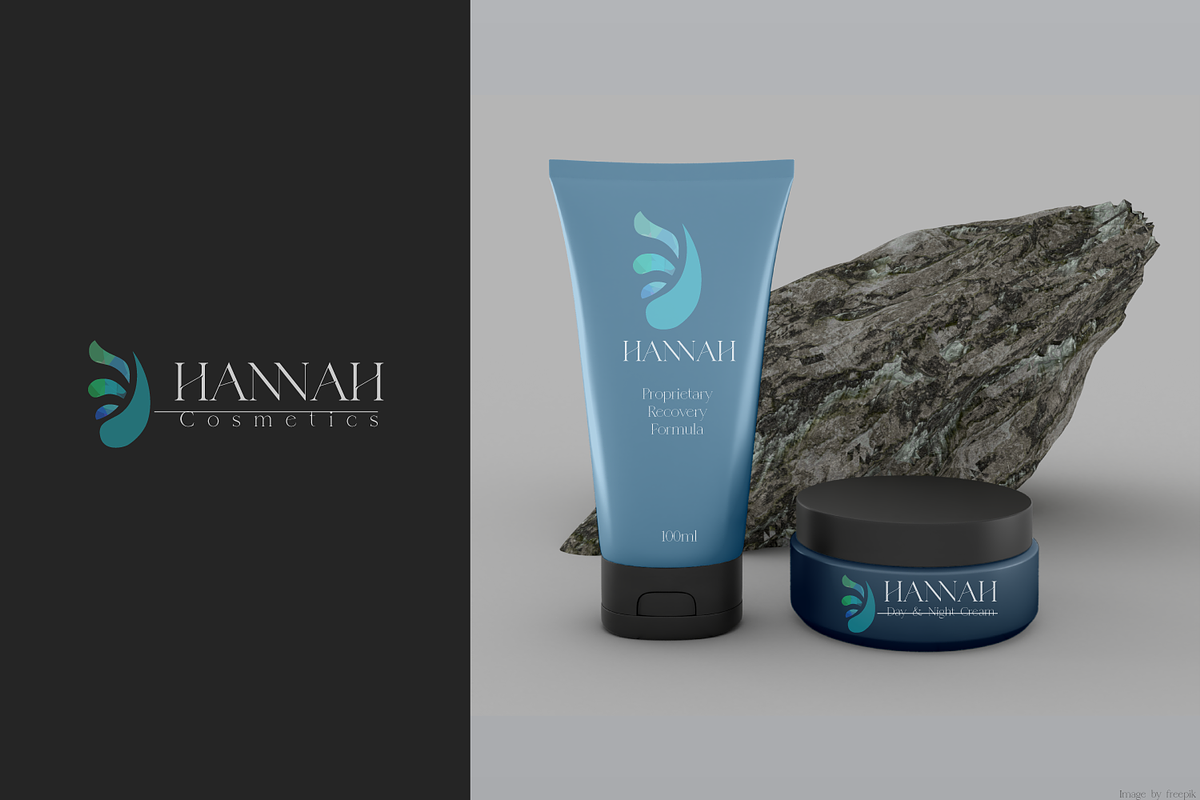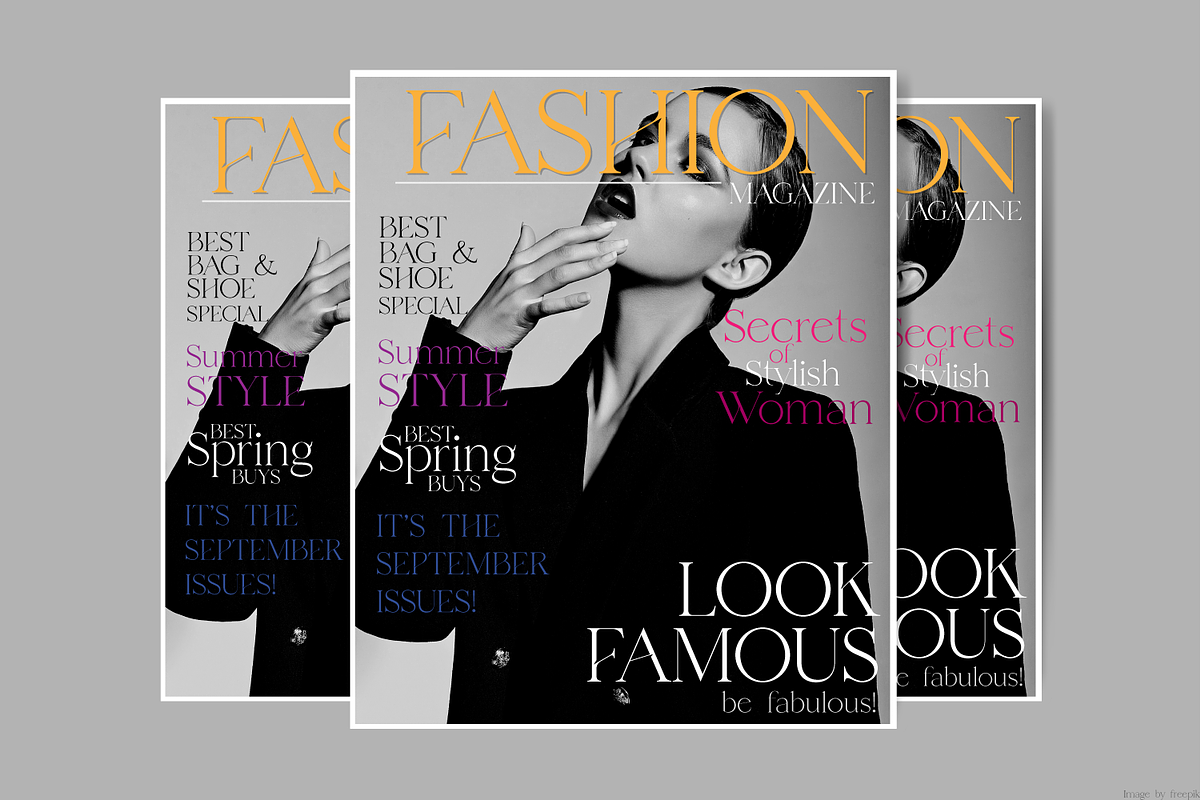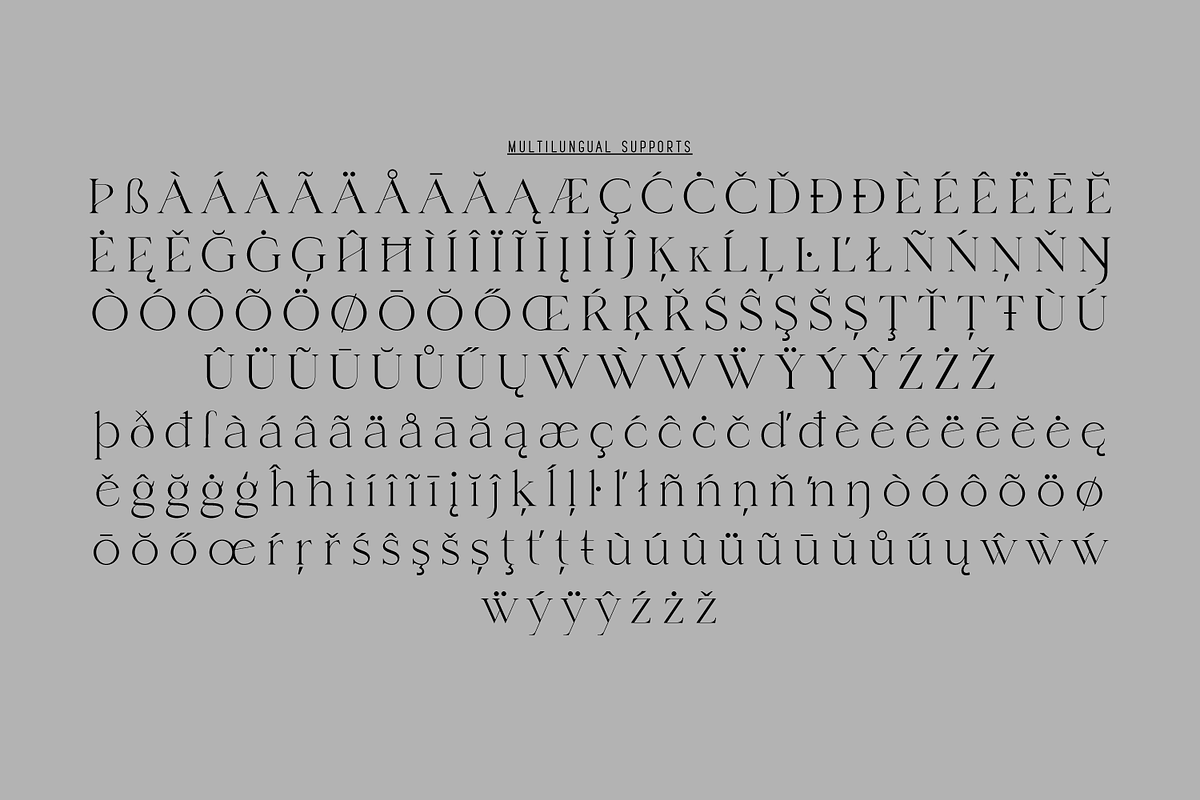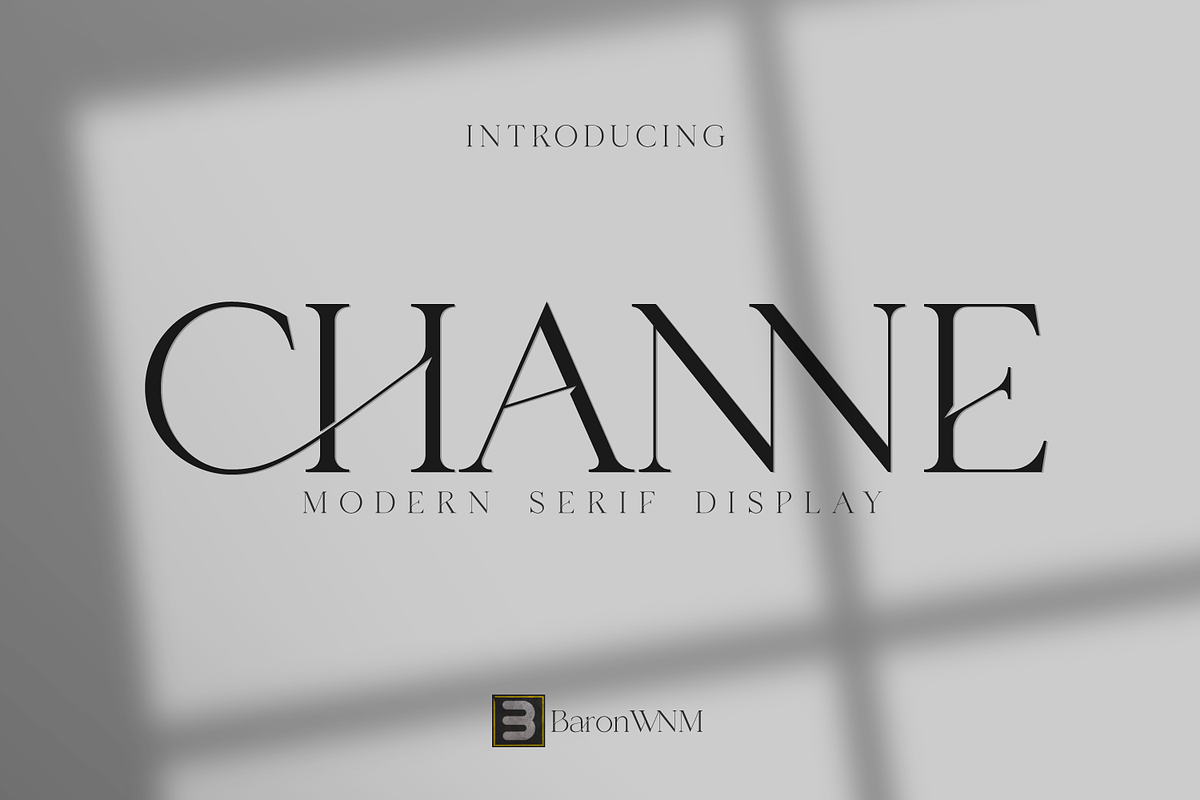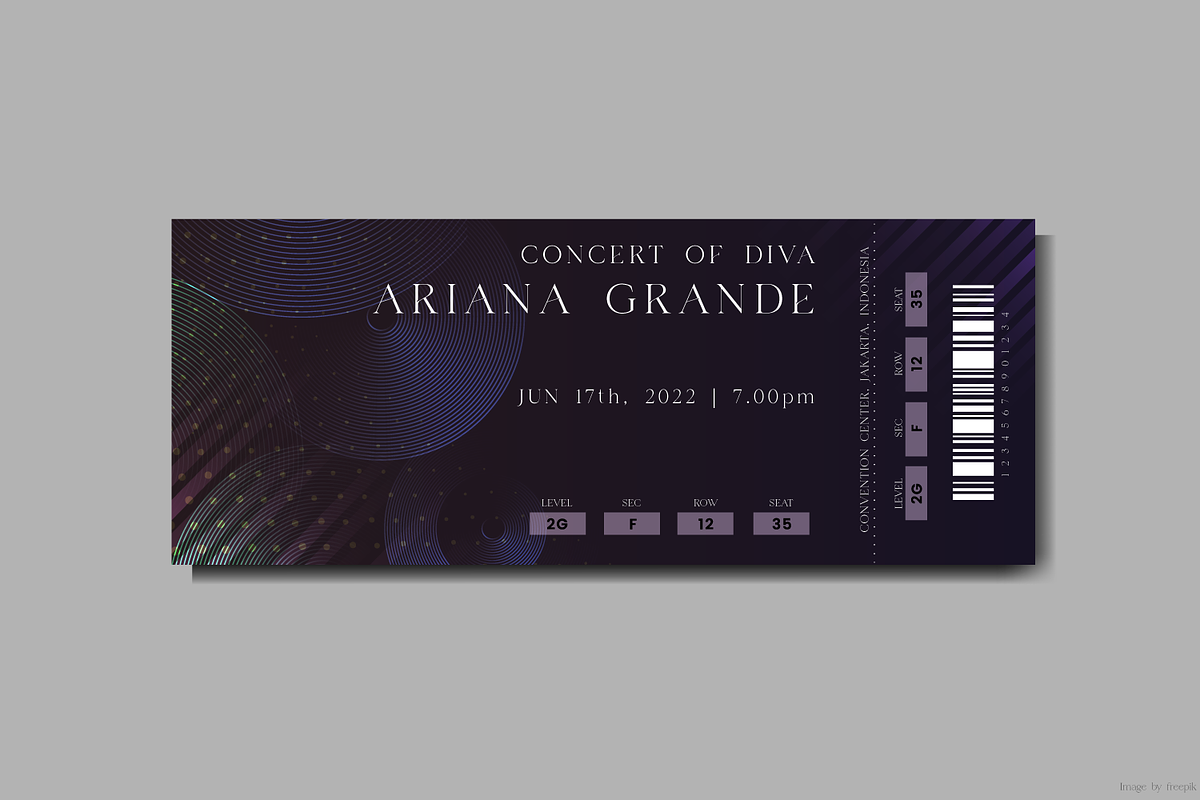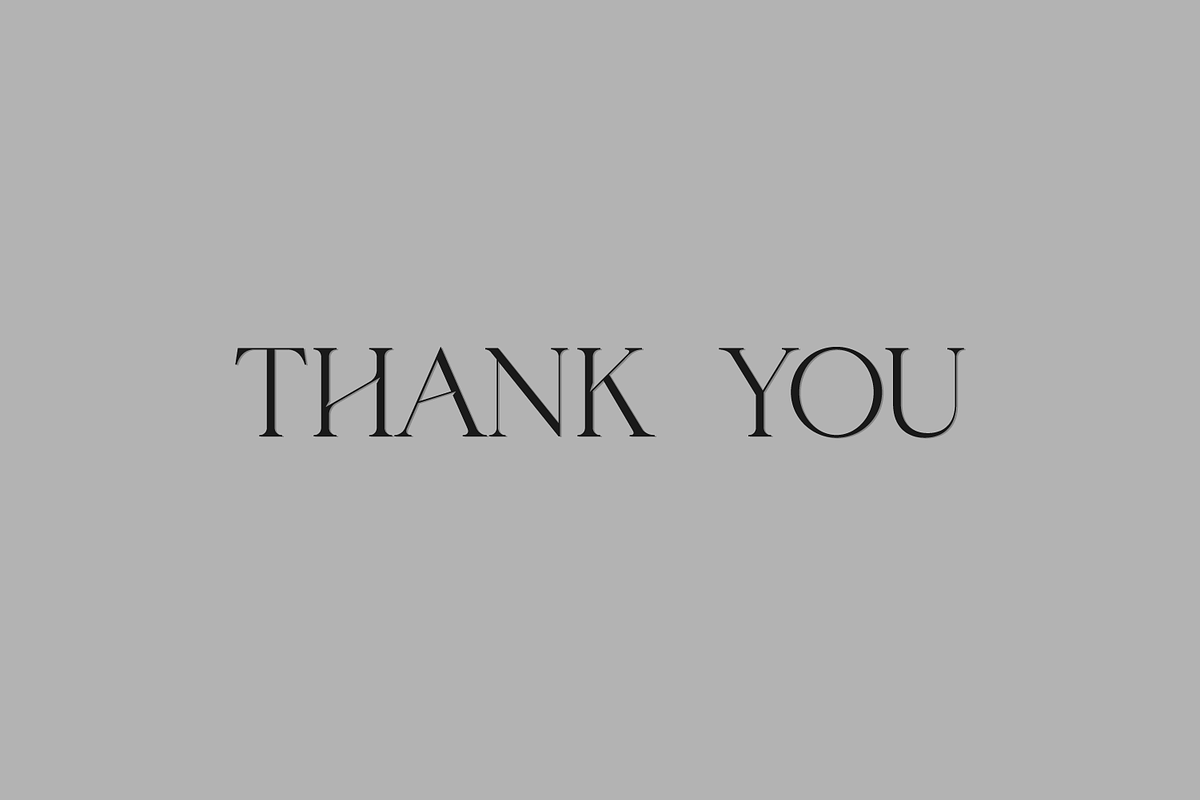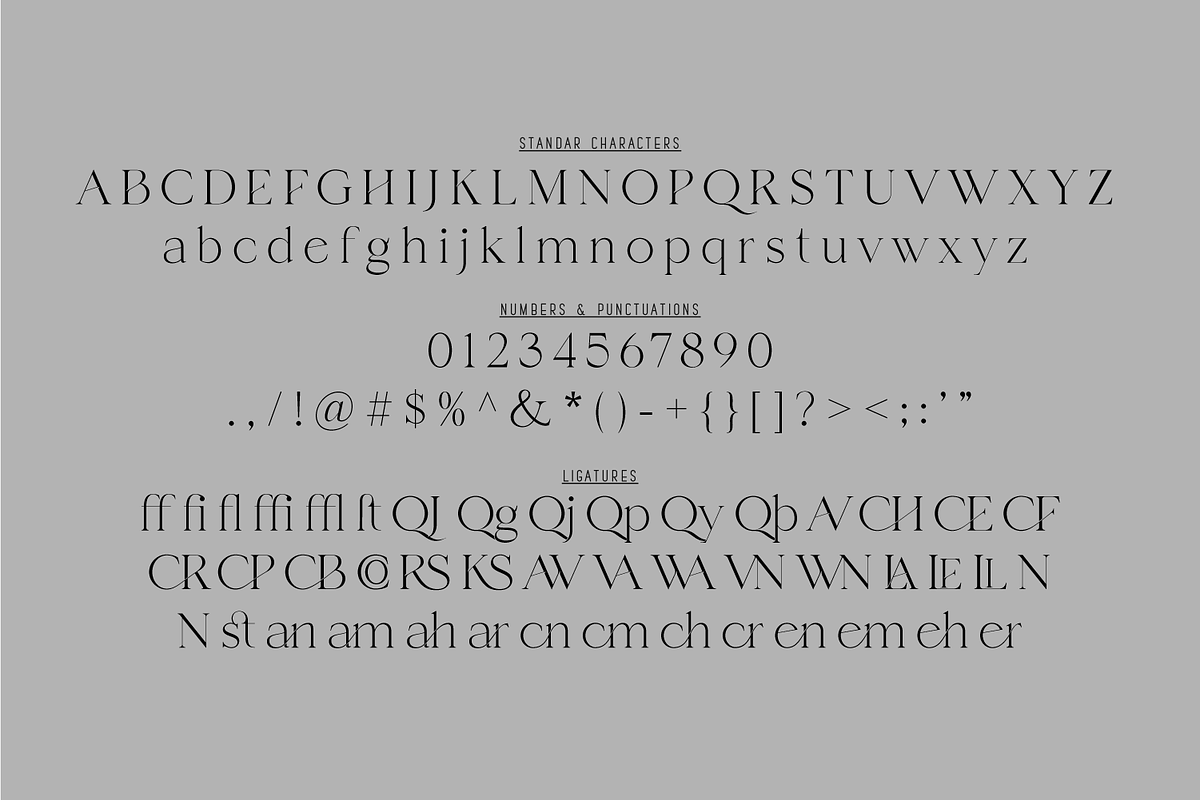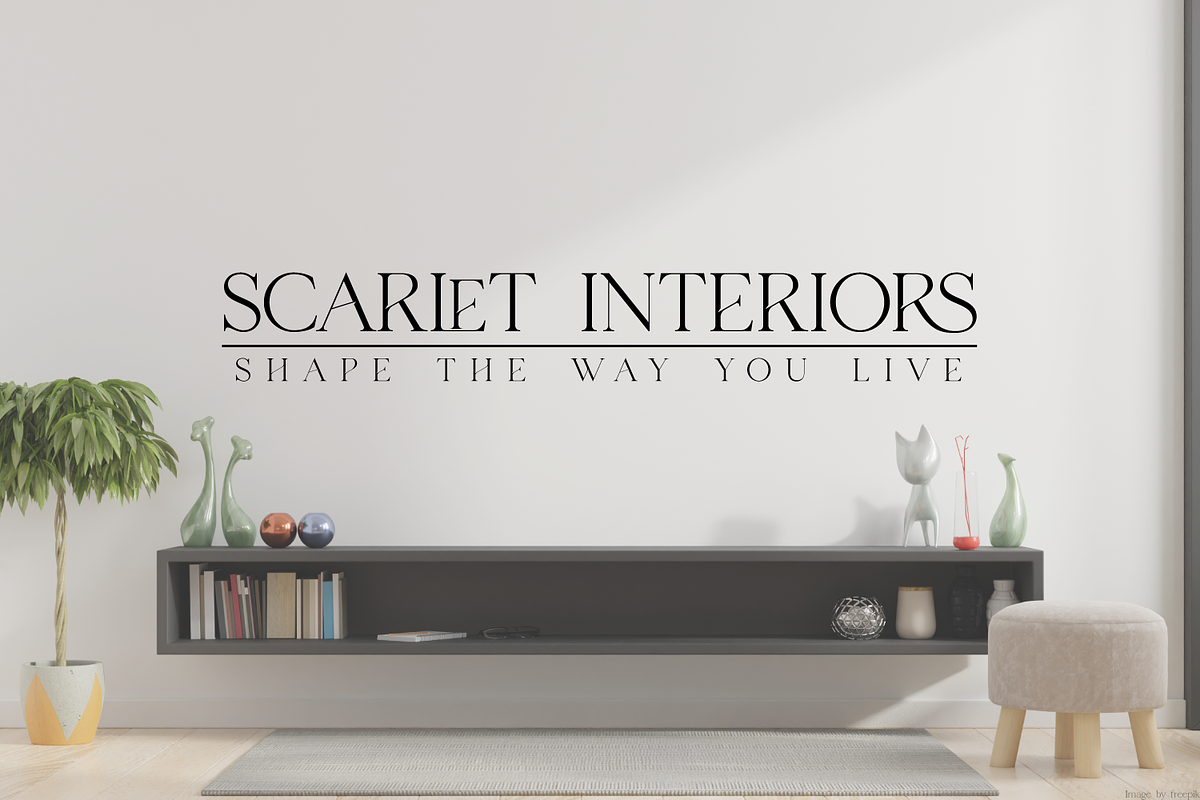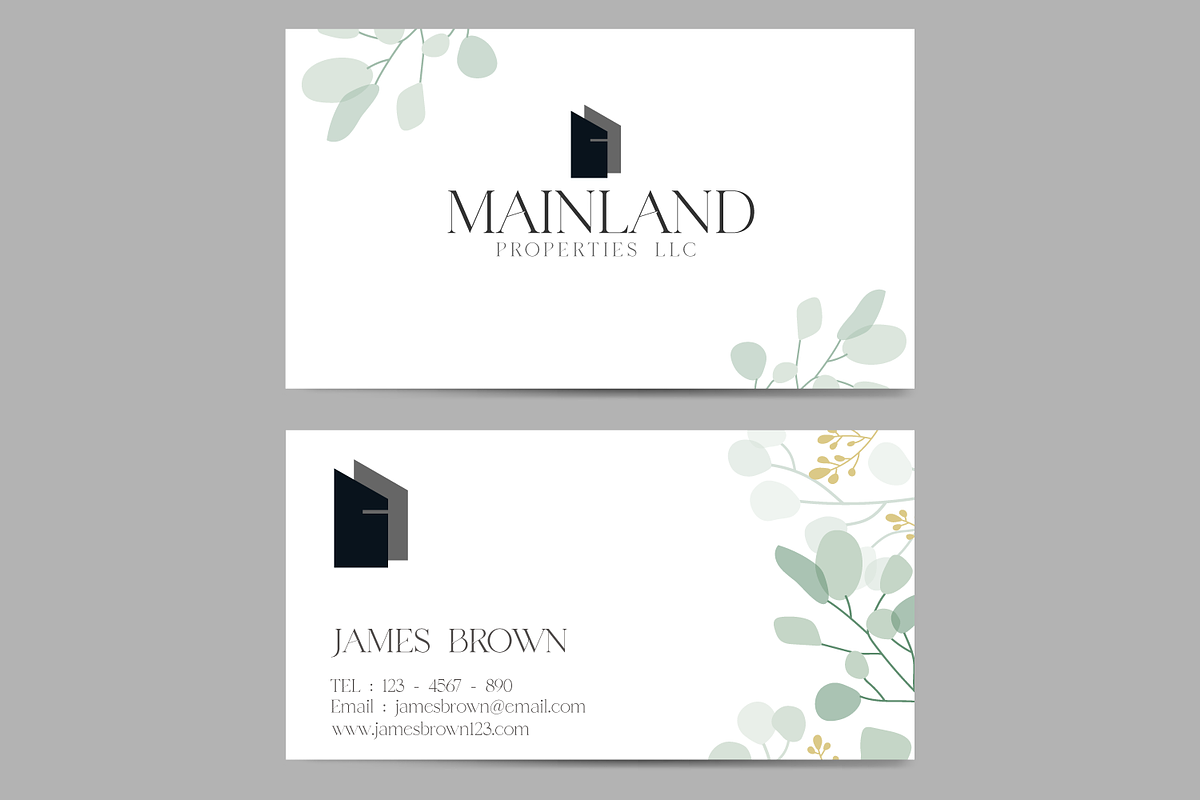
Channe
Channe is a tall, thin and incredibly stylish serif font. It can be used for various purposes such as logos, wedding invitations, headings, t-shirts, letterhead, signage, labels, news, posters, badges and so much more.